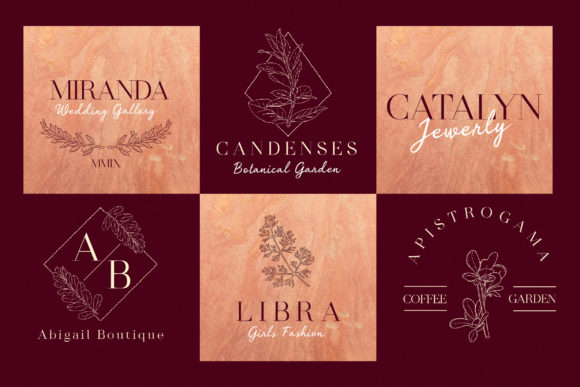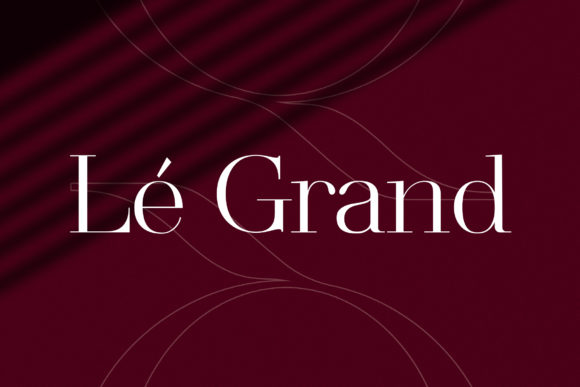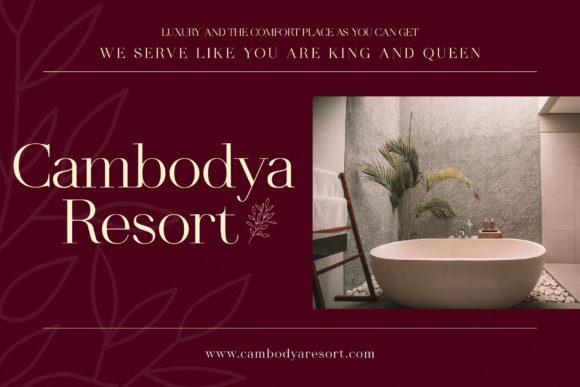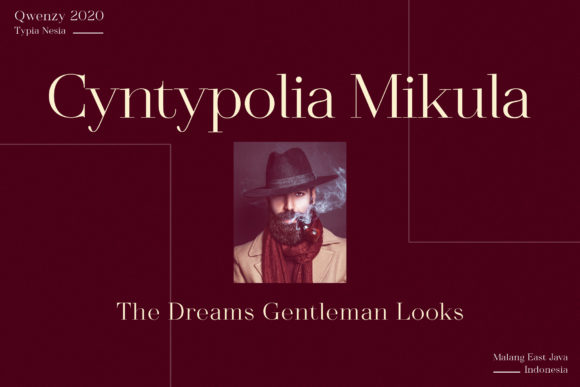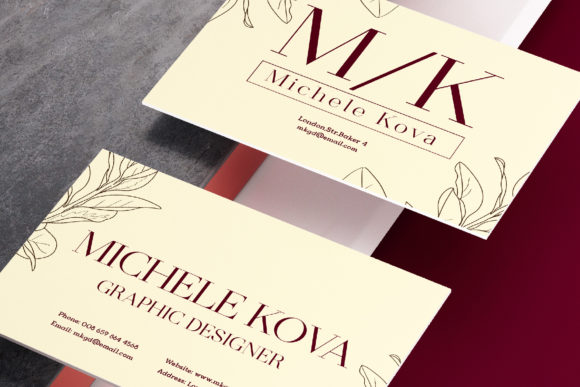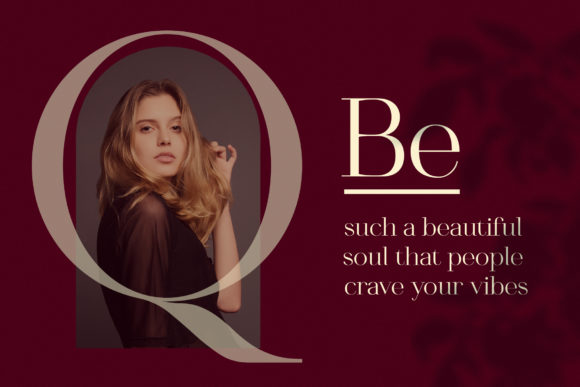
Introduction to Qwenzy Font
As designers, we’ve all been there – staring at a blank canvas, waiting for the perfect font to bring our creative project to life. It’s that moment when you need a font that exudes elegance and sophistication, yet remains versatile enough to adapt to any design style. For those moments, we’re excited to introduce you to the Qwenzy Font, a true gem in the world of typography.
This stunning serif font is more than just a pretty face – it’s a valuable resource for designers looking to elevate their work. With its high-quality design, the Qwenzy Font is perfect for luxury branding, editorial designs, and fashion promotional materials. Plus, its transparent background makes it easy to use on any design project, from logos to stationery. And the best part? You can download it for free, making it an essential design resource for any creative project.
Key Features of Qwenzy Font
- Unique, hand-drawn design with a modern and creative feel, making it perfect for any creative project.
- Includes a range of characters and symbols, including Latin and Cyrillic scripts, making it a versatile design resource.
Honest Review: Qwenzy Font
I recently stumbled upon the Qwenzy Font, and I must say it’s been a game-changer for my creative projects. As a designer, I’m always on the lookout for high-quality fonts that can elevate my designs and make them stand out.
- ✨ Unique design: The Qwenzy Font has a unique and elegant design that sets it apart from other fonts. It’s perfect for creating a professional and sophisticated look for my designs.
However, I do have a few minor complaints. ⚠️ The font could benefit from more character variations, such as italics and bold. Additionally, the font’s support for languages other than English could be improved.
Overall, I’m impressed with the Qwenzy Font and would definitely recommend it to fellow designers. Its unique design and high-quality look make it a valuable resource for any creative project. Plus, the fact that it’s available for free download is a major plus.